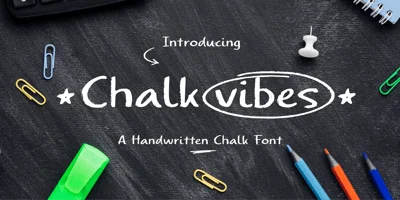
Chalkvibes Font
Chalkvibes Font is perfect for educational institution branding, coffee shop menu boards, creative classroom designs, artisan bakery signage, nostalgic restaurant marketing, vintage school-themed events, handmade craft promotions, and authentic blackboard communications. This textured typeface brings educational charm, artisanal authenticity, and nostalgic sophistication to any project celebrating the timeless appeal of chalk-on-blackboard aesthetics and the warm familiarity of traditional classroom culture.
What makes Chalkvibes Font exciting is its remarkable ability to evoke the tactile experience of chalk writing through letterforms that seem dusted with authentic chalk texture and shaped by caring teachers' hands. The font features naturally irregular character shapes with chalk-like imperfections, organic spacing that suggests hand-lettered spontaneity, and textural details that capture the distinctive appearance of chalk marks on traditional blackboards. Its educational character embodies the warmth and dedication of learning environments, making it perfect for brands that want to communicate authenticity, craftsmanship, and the nostalgic appeal of traditional educational methods and artisanal hand-lettering.
The Chalkvibes Font family typically includes regular weight with authentically textured uppercase and lowercase letters, chalk-styled numerals, and comprehensive punctuation marks that maintain the font's blackboard authenticity and educational appeal. The design emphasizes handcrafted charm while ensuring practical readability for contemporary educational and artisanal communication applications that require both nostalgic character and functional clarity.
Whether you're creating educational brand identities or developing artisanal marketing materials, Chalkvibes Font provides unmatched educational authenticity and handcrafted appeal. This typeface excels in applications where its textured character can evoke memories of traditional learning and artisanal craftsmanship. Its nostalgic aesthetic makes it particularly effective for schools, cafes, and craft businesses that want to associate with authentic handwork and educational tradition. The font's textured presence helps establish emotional connections while ensuring memorable recognition through typography that celebrates the enduring charm of Chalkvibes Font traditional blackboard aesthetics and educational heritage.